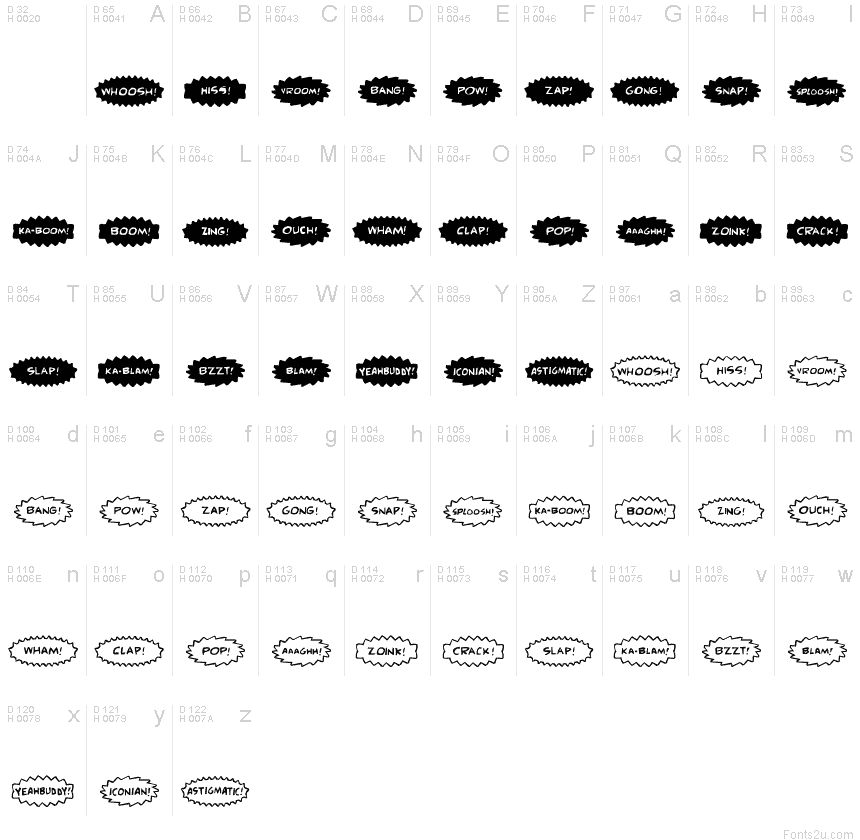
Comic FX
Comic FX font by Jevan Vaughn, Dan Zadorozny, and Brian Bonislawsky is a free dingbats typeface packed with classic comic-book sound effects. Each glyph pops like a hand‑inked burst: jagged starbursts, chunky ovals, and spiky explosions that feel loud even on mute. The bold, high-impact shapes and crisp black‑and‑white contrast instantly turn any layout into a Saturday‑morning panel.
Using Comic FX, you can drop ready‑made “VROOM,” “ZAP,” and “OUCH” moments into comic pages, kids’ posters, superhero party invites, stickers, game UIs, or YouTube thumbnails without drawing a thing. This free font works best when you keep your main text in a simple sans serif and let the FX icons shout at larger sizes, like visual exclamation points scattered across the page.